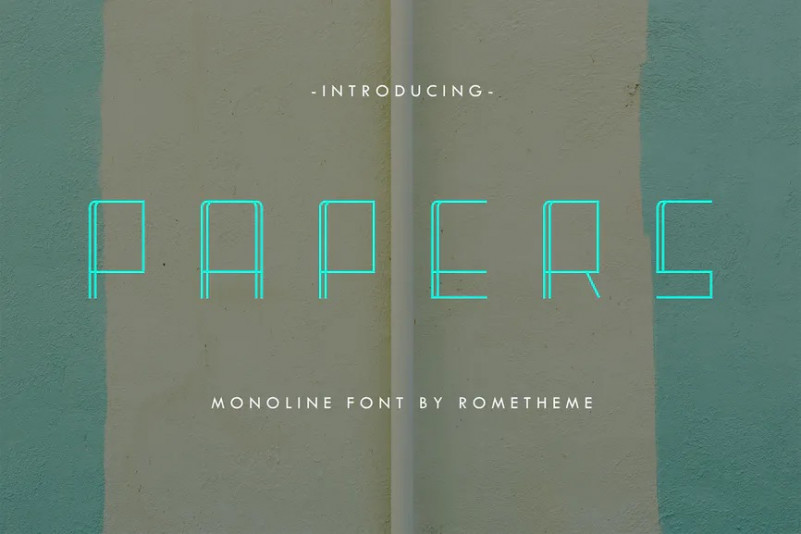
Papers Font
Papers is Monoline display font. It has a elegant, classy look and cool. It’s a great font for fashion, apparel projects, signature, album cover, logo, branding, magazine, social media, & advertisements, but also works great for other projects.